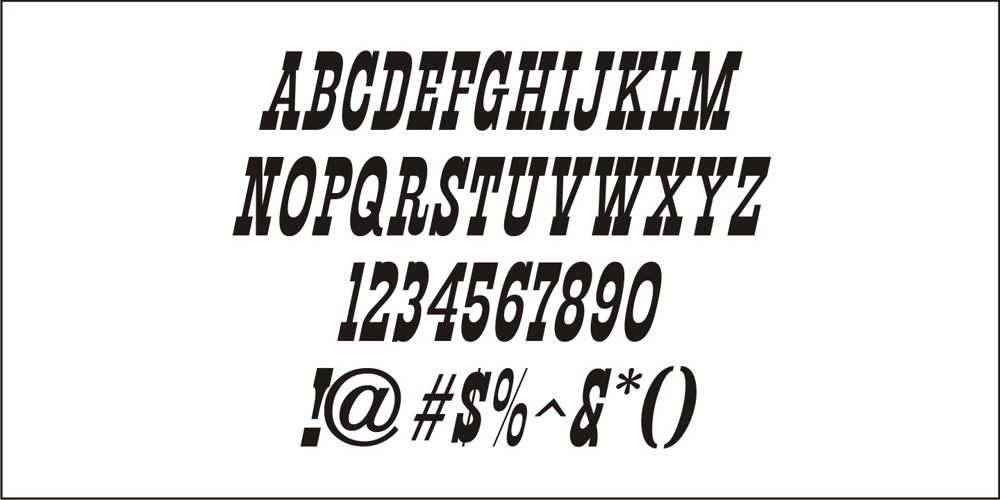
Mule Train JNL
Mule Train JNL font
Mule Train JNL Font Family was designed by Jeff Levine and published by Jeff Levine. Mule Train JNL contains 2 styles and family package options. Instead of being directly based on classic wood or metal type examples, Mule Train JNL takes a roundabout route in its development. Images of a set of letters and numbers cut from plywood (which in turn were based on a vintage type design) served as the work models. Mule Train JNL is available in both regular and oblique versions.